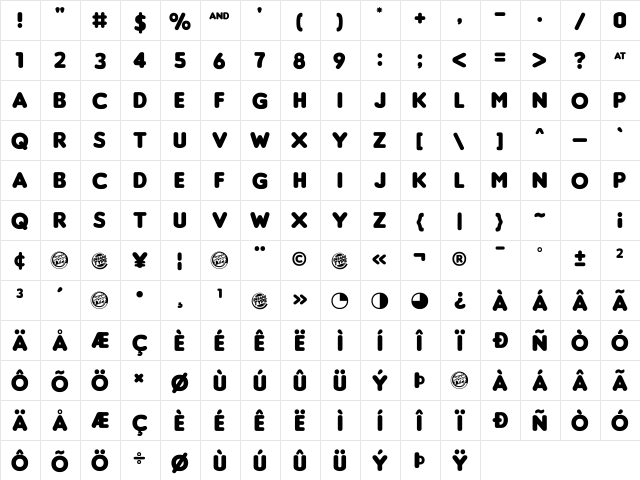
Insaniburger Regular
Design Context for Insaniburger Typeface
Insaniburger takes a measured approach to typography — its balanced proportions and neutral character make it a reliable workhorse for both digital and print work.
Pro Tip: Pair Insaniburger with a font of contrasting weight or personality to build a more expressive typographic hierarchy.